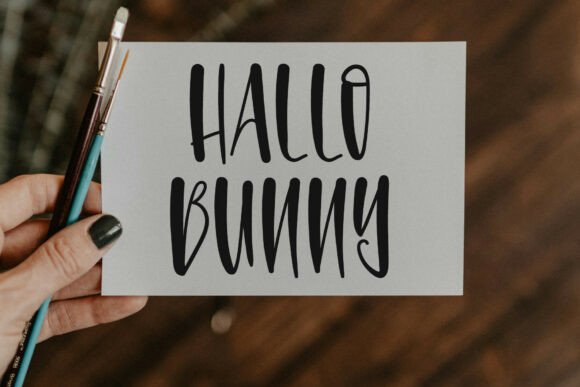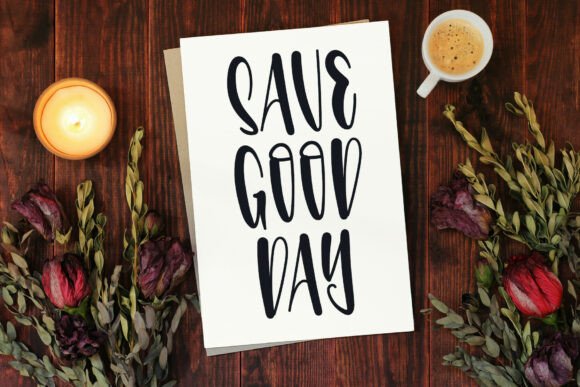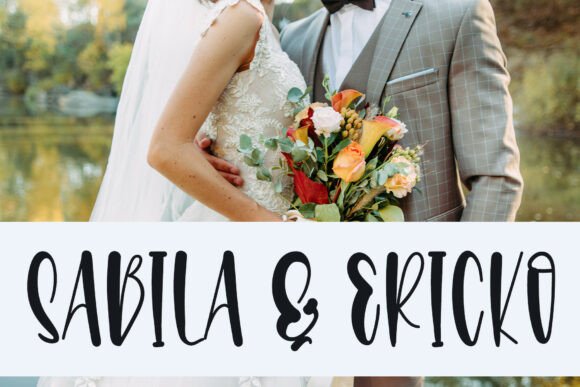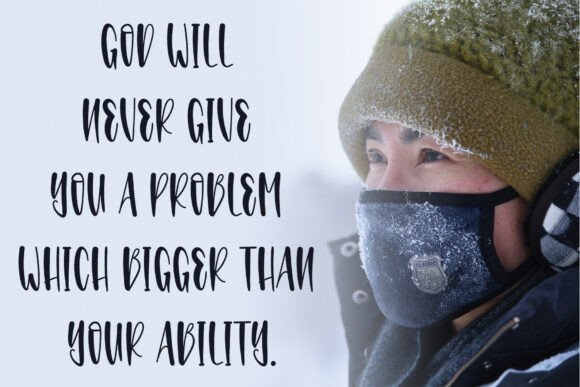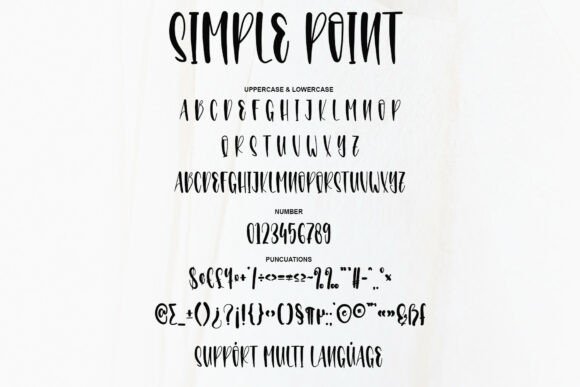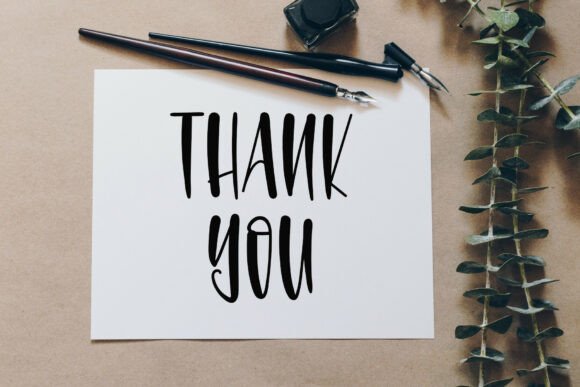
Introduction to Simple Point Font
Simple Point is a fun and quirky display font perfect for use on cheerful topics.
Very suitable for childrenโs themed designs, especially when combined with bright colors .
Key Features of Simple Point Font